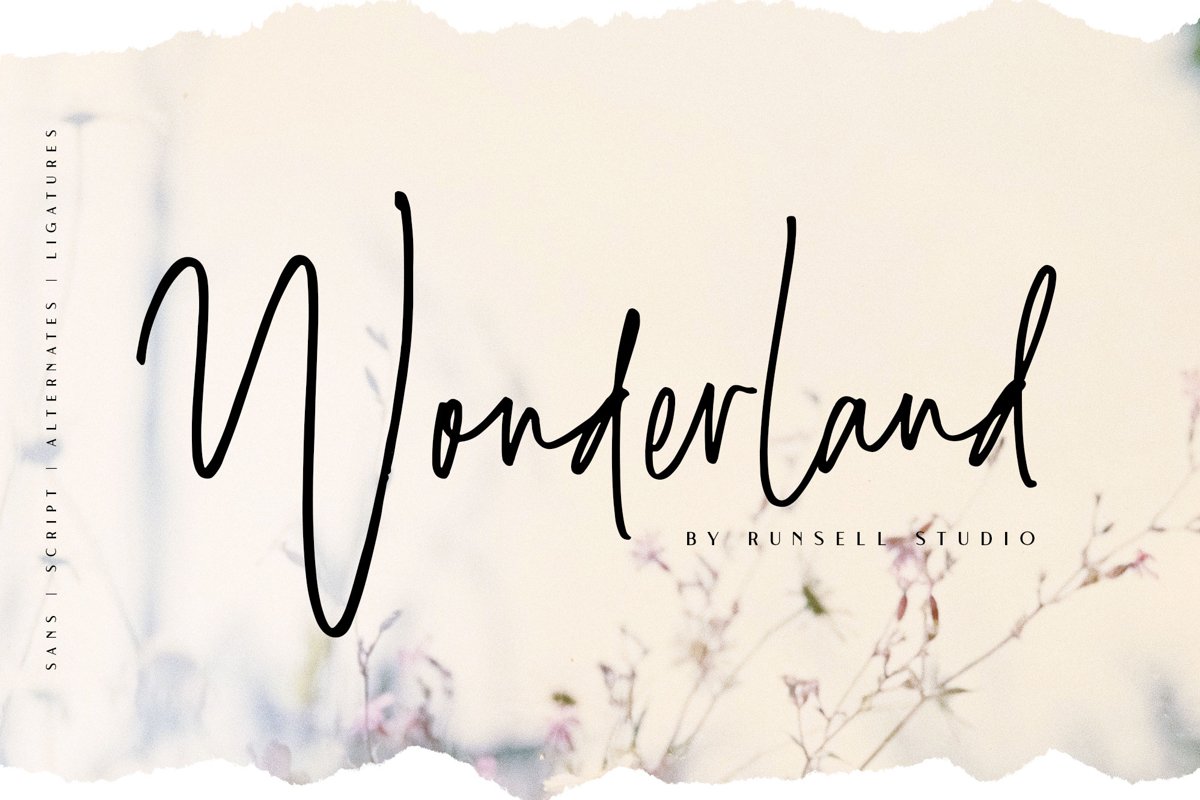
Wonderland | Script & Sans Serif
Wonderland is a classy handwriting font with a distinctive curve, inside with some interesting features that are perfect for a authentic-style project. Wonderland is perfectly suited to signature, stationery, logo,
typography quotes, magazine or book cover, website header, clothing, branding, packaging design and more. A handwritten script font containing upper and lowercase characters, numerals and a large range of punctuation.